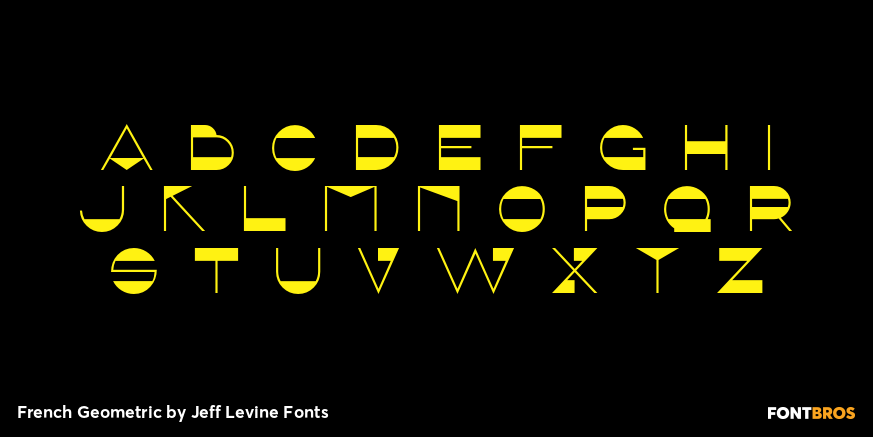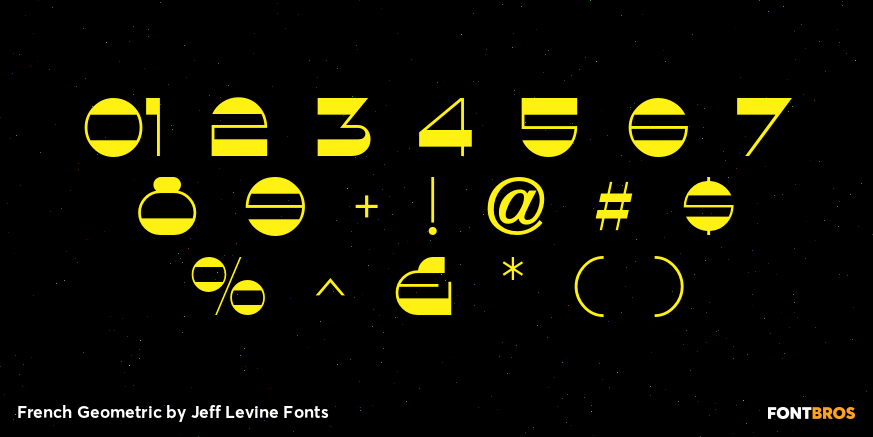
French Geometric
An Art Deco geometric alphabet found within the pages of the 1939 French lettering book "Modèles de lettres modernes par Georges Léculier" ("Models of Modern Letters by Georges Léculier") is the basis for French Geometric JNL; available in both regular and oblique versions.
French Geometric JNL Regular
French Geometric JNL Oblique